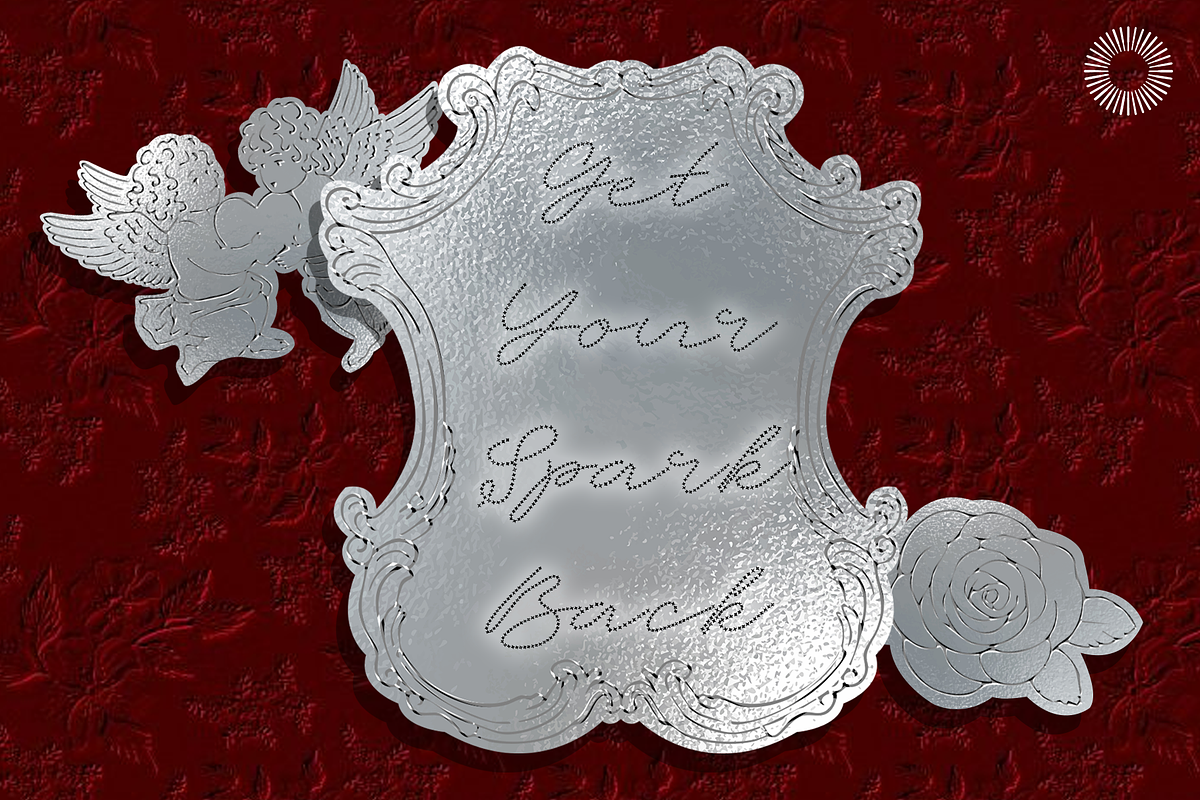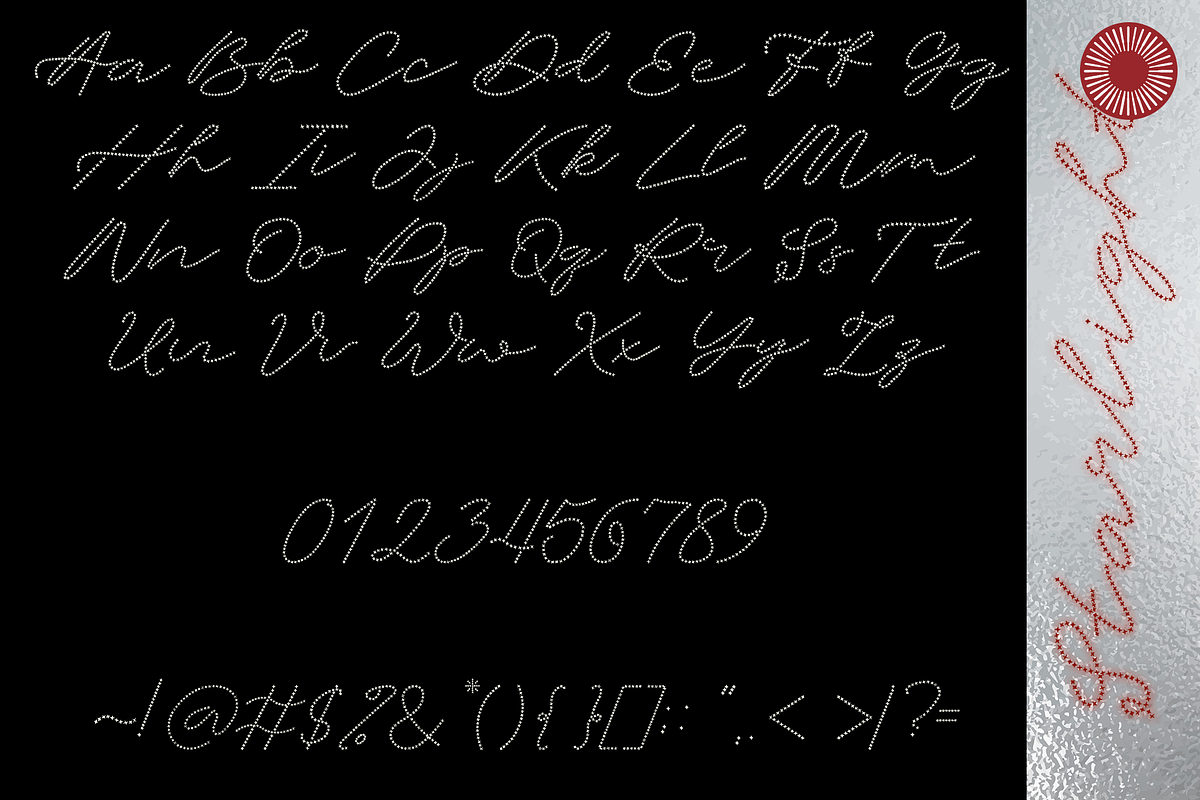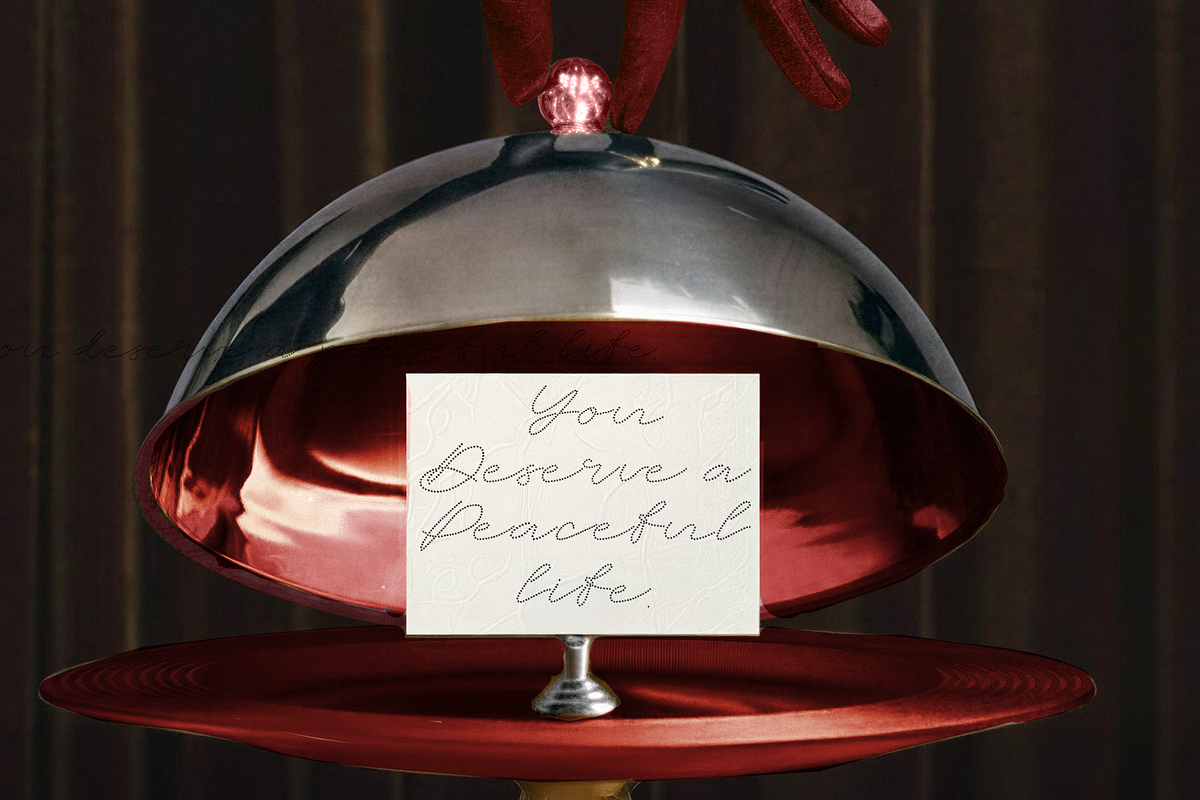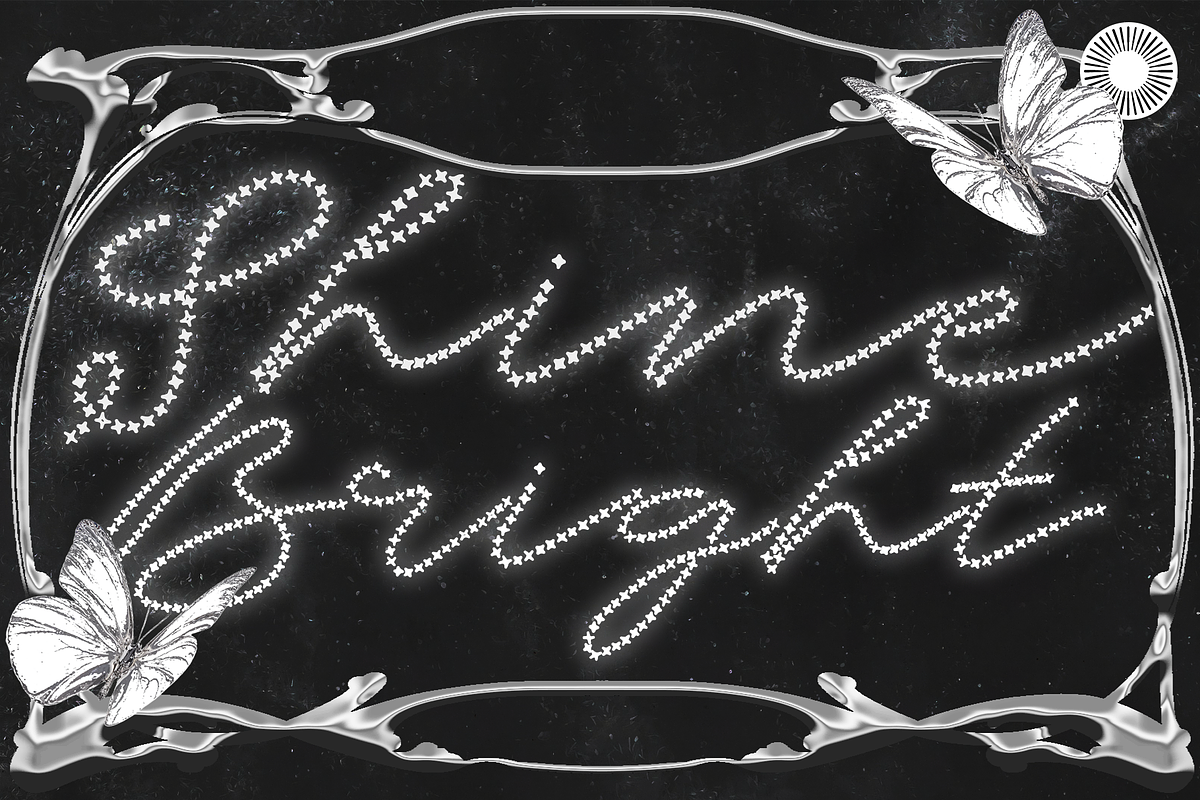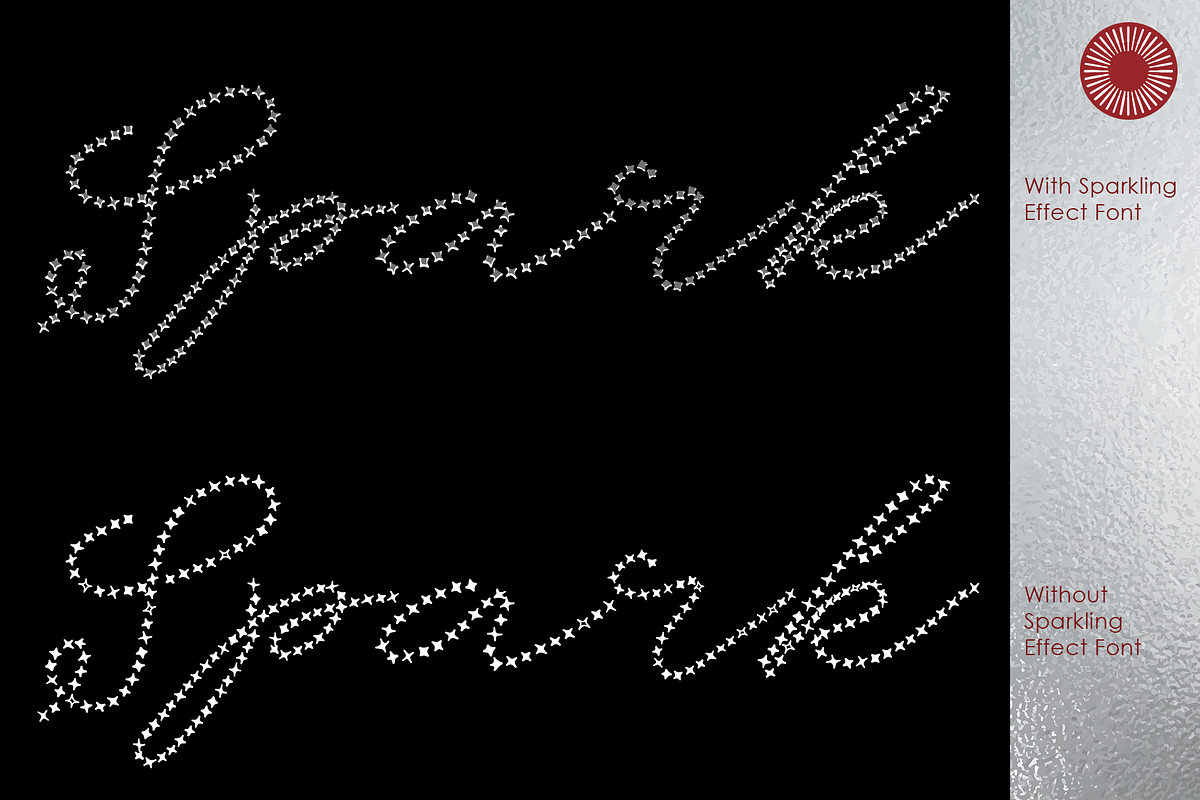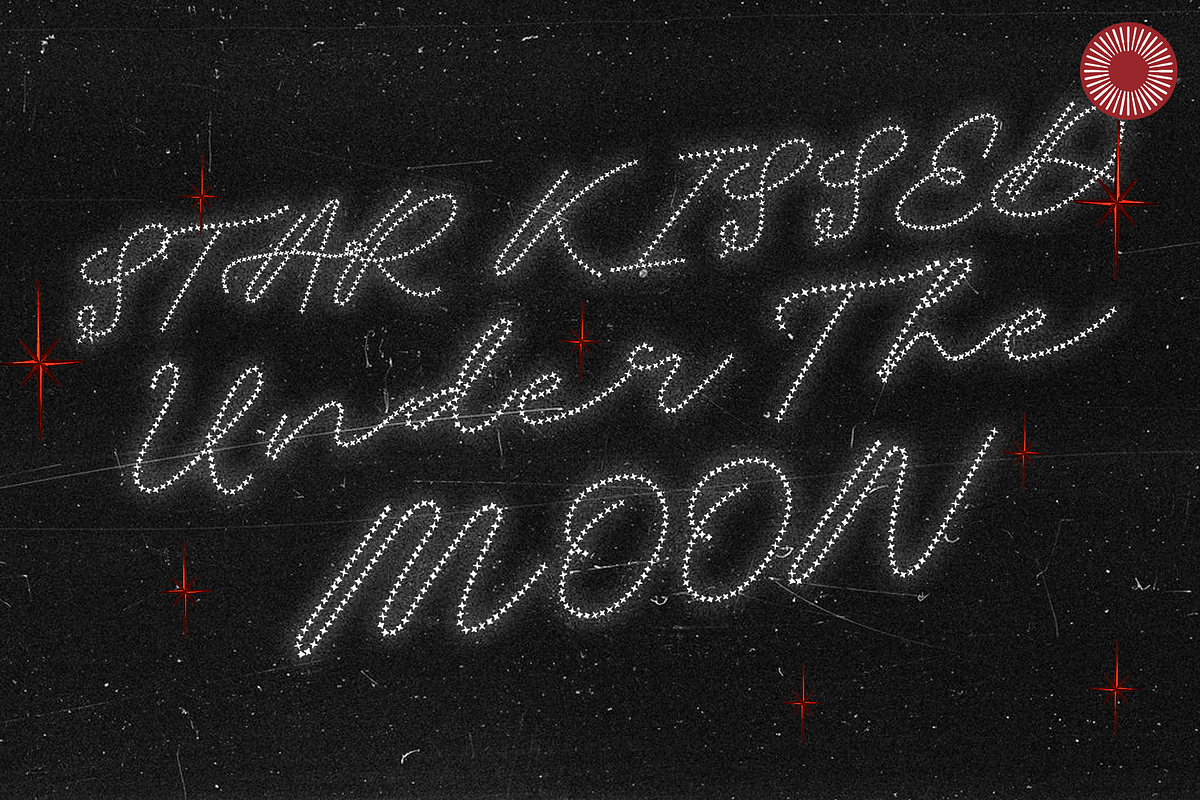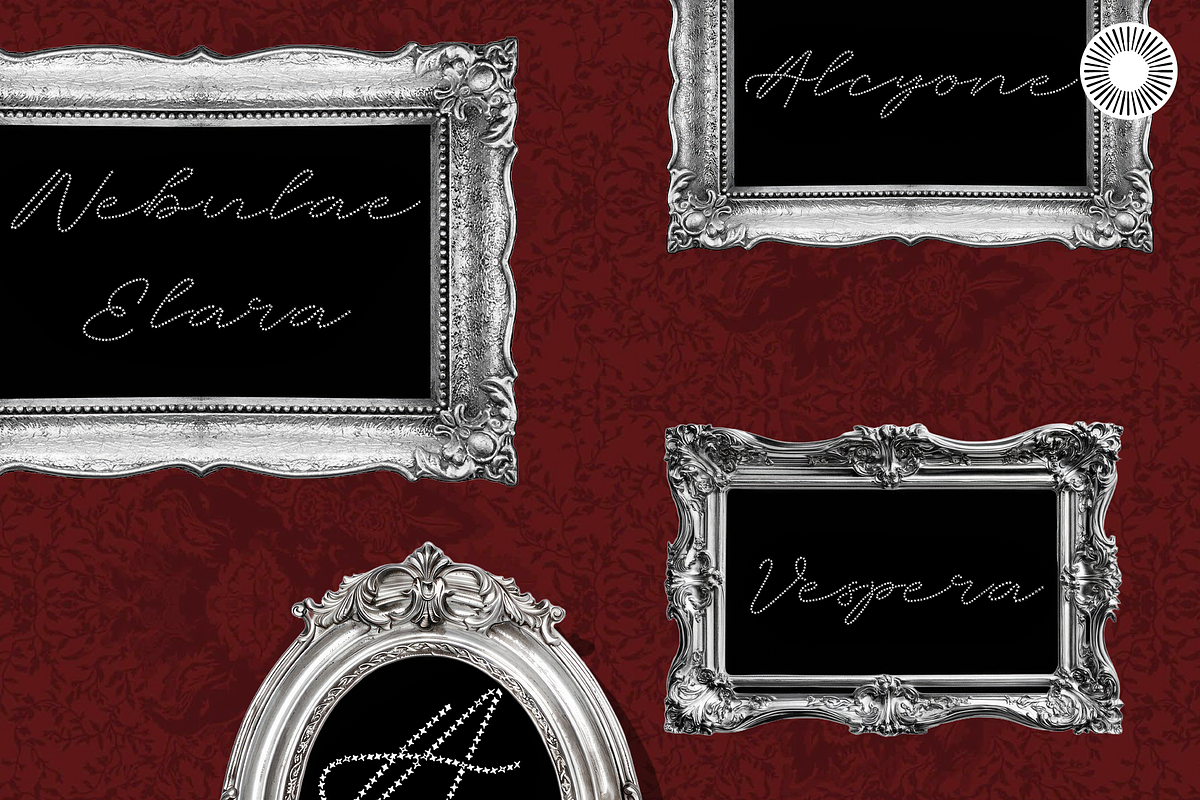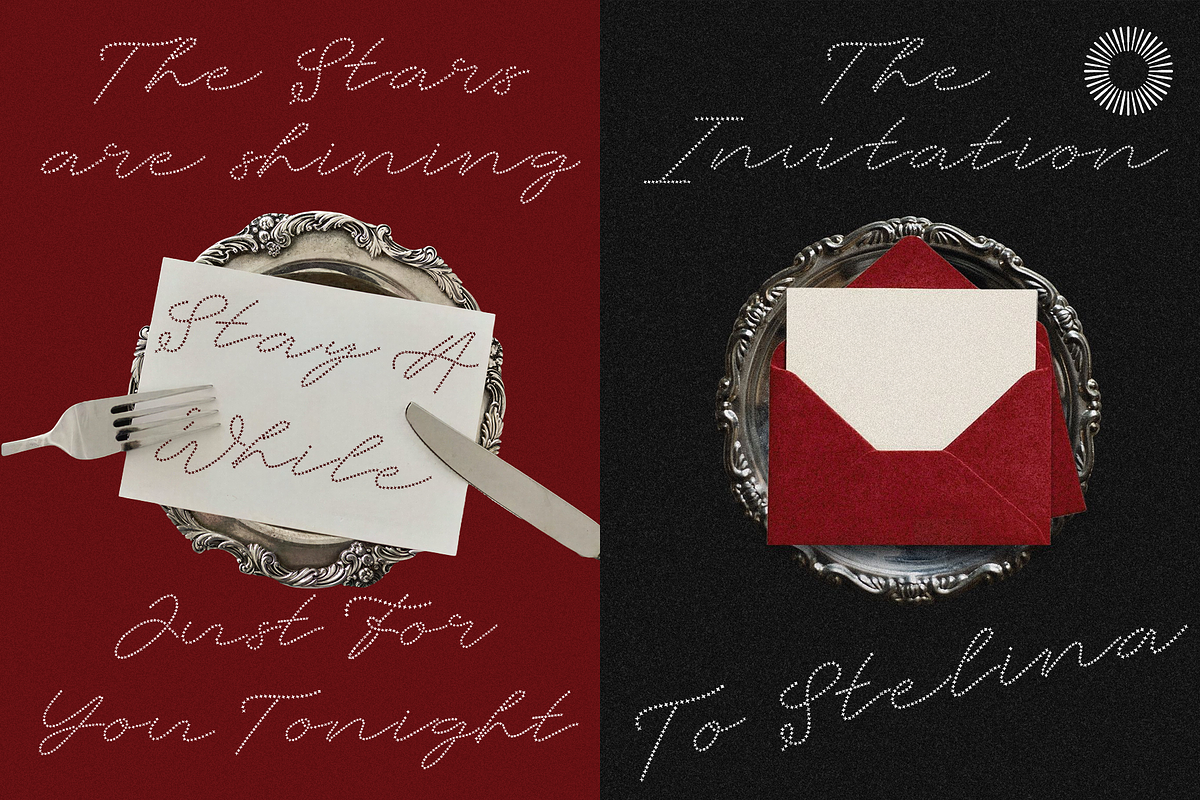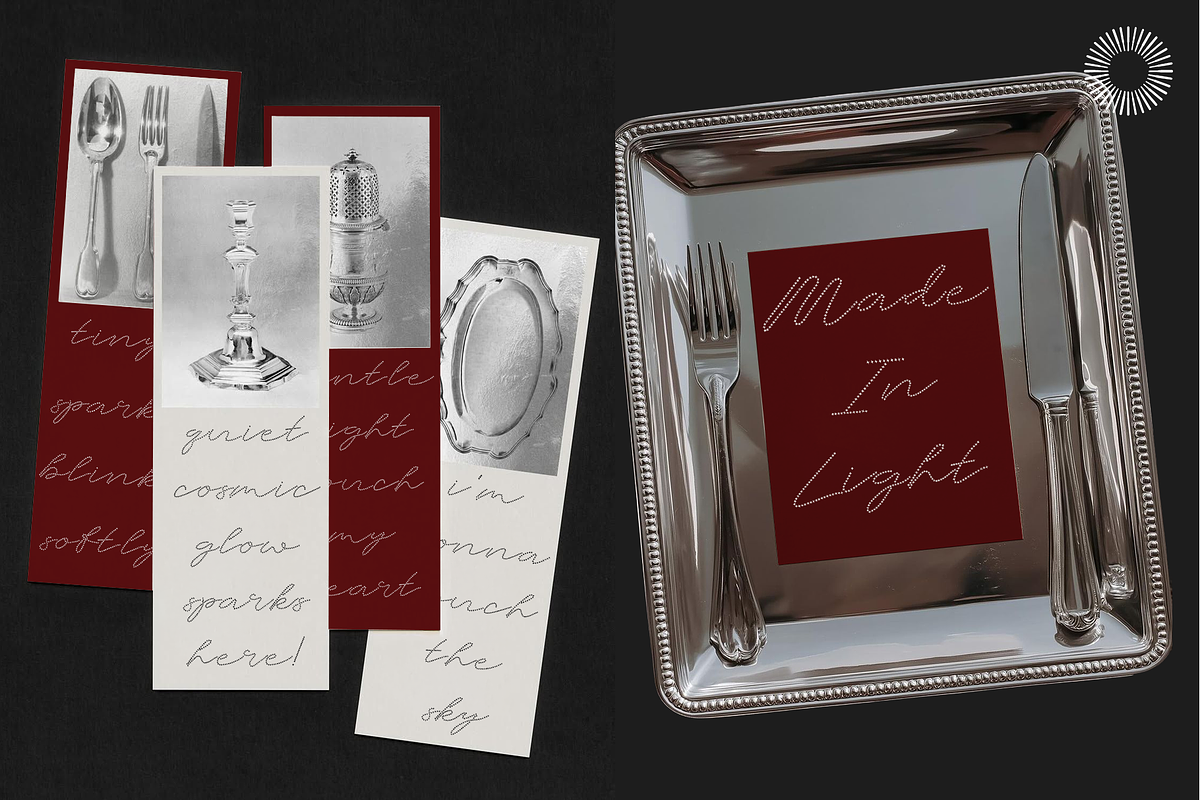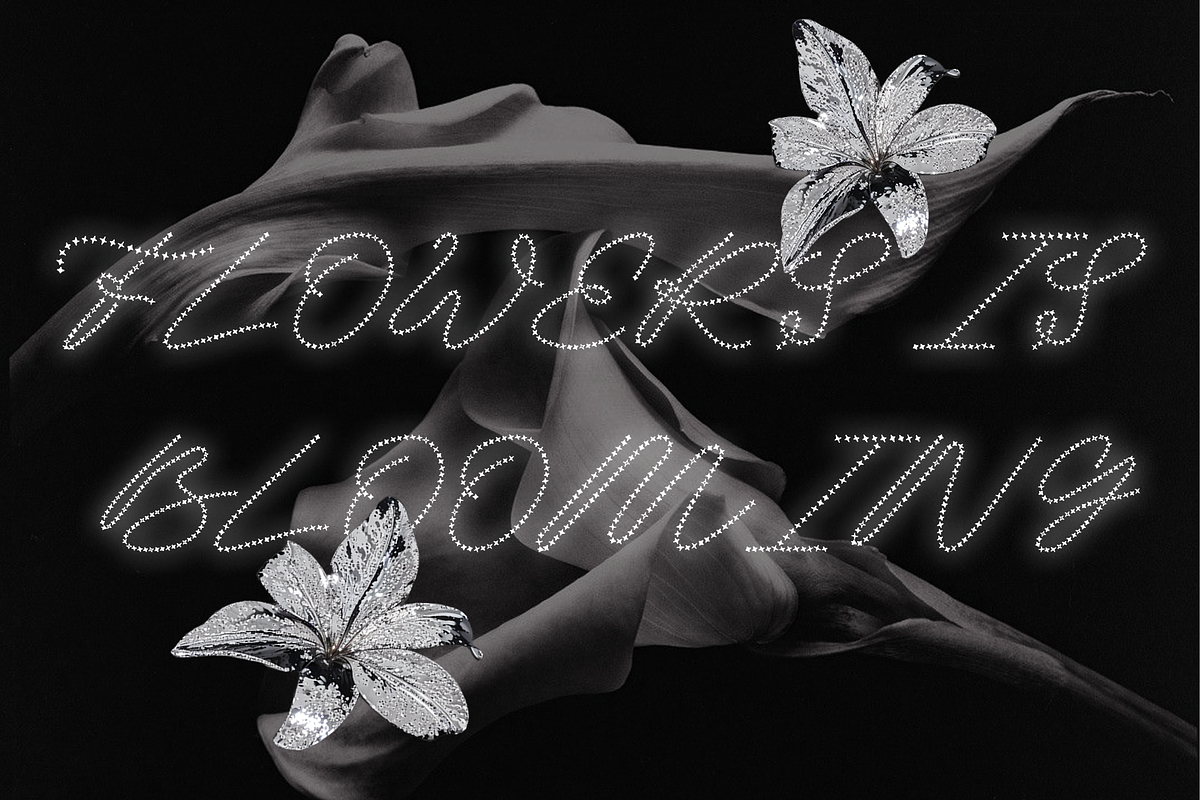
Starlight - Decorative display font
Starlight is a decorative display font built entirely from star-shaped forms, designed to capture a sense of wonder, fantasy, and celestial charm. Each letter is composed of small star elements arranged to form flowing, script-like letterforms, creating a unique balance between playful sparkle and readable structure. Unlike solid or outline fonts, Starlight relies on visual texture rather than stroke weight. This makes it especially strong as a headline and statement font, where the star pattern can shine without competing with body text. The organic flow of the letters gives it a handwritten, dreamy rhythm, while the repeated star motif delivers a bold visual identity that feels magical, festive, and imaginative. Because of its decorative nature, Starlight is not intended for long paragraphs or small-size text. Its real strength lies in impact-driven typography, titles, posters, covers, logos, and social media visuals where atmosphere matters more than minimalism.
- Numerals and basic punctuation
- Optimized for display use at medium to large sizes
Best For Starlight works best in projects that need a dreamy, celestial, or celebratory mood, such as:
- Posters and event titles
- Album covers and music artwork
- Fashion and beauty branding
- Social media graphics and reels
- Greeting cards and invitations
- Fantasy, astrology, or night-themed designs